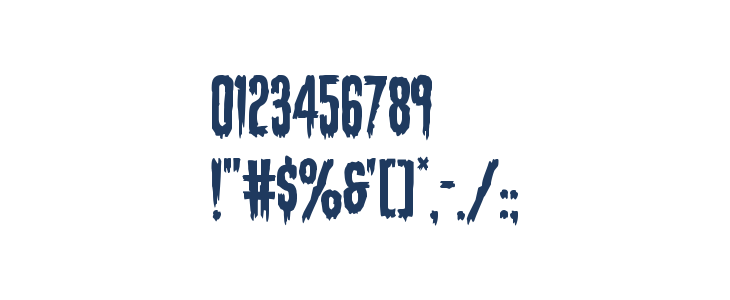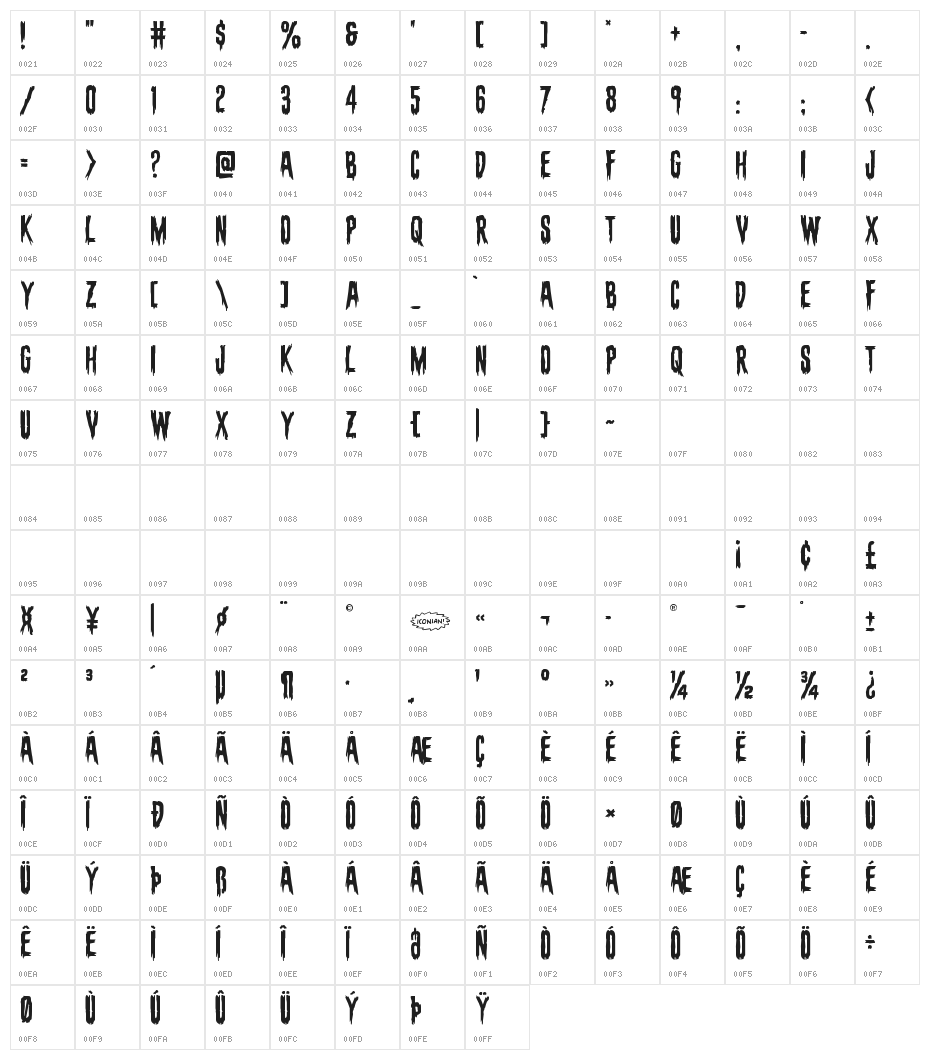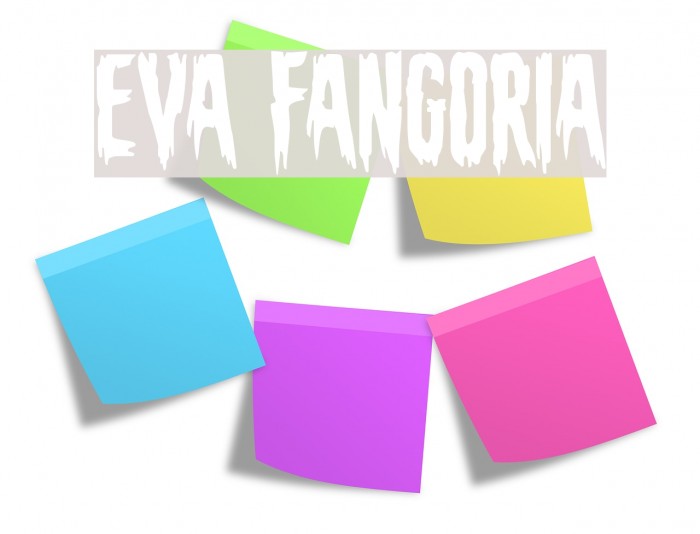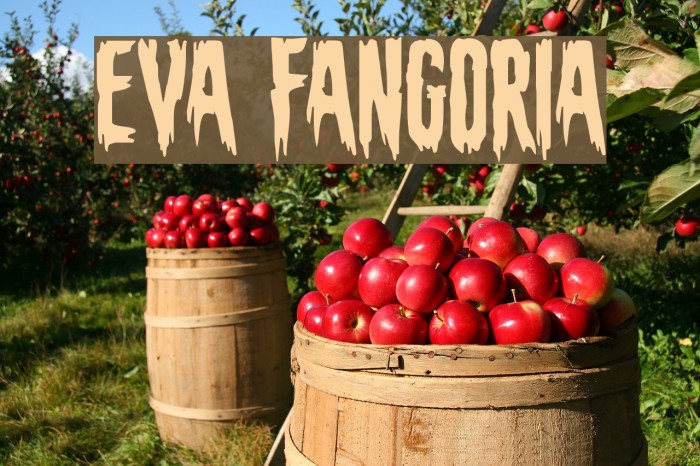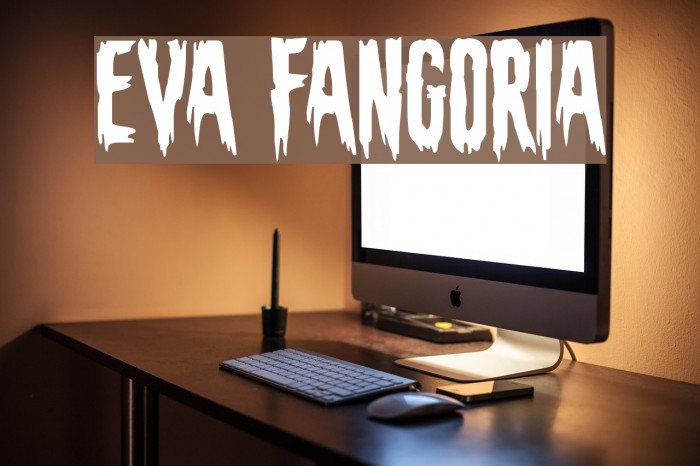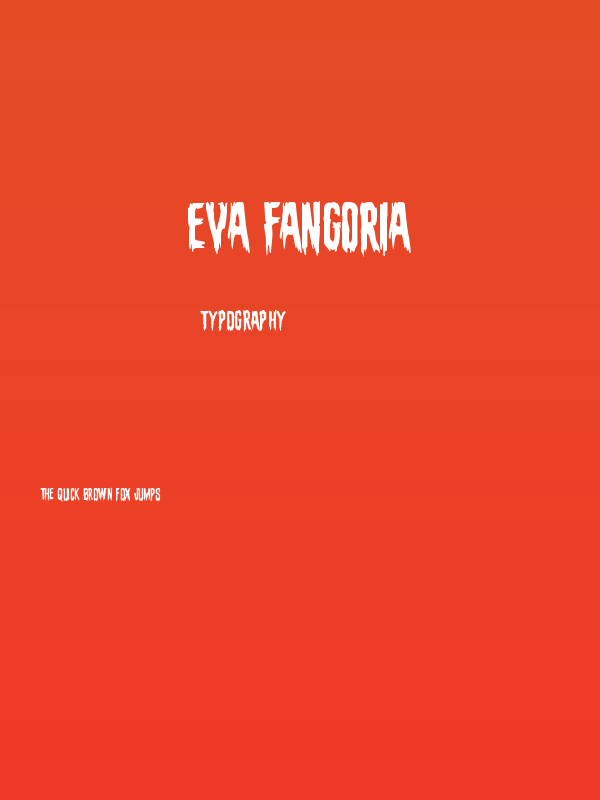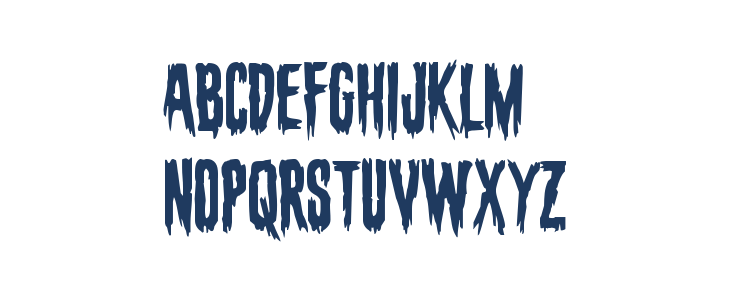
Eva Fangoria Font
Eva Fangoria Description
This font features a dramatic and edgy design, characterized by jagged edges and a distressed appearance. The letters are bold and have a horror-themed aesthetic, reminiscent of dripping or torn textures. This style is particularly striking and attention-grabbing, making it suitable for designs that require a strong visual impact. The uppercase and lowercase letters maintain a consistent style, ensuring uniformity across different text elements. Numbers and special characters are also included, following the same thematic design, which enhances the font's versatility for various creative projects.